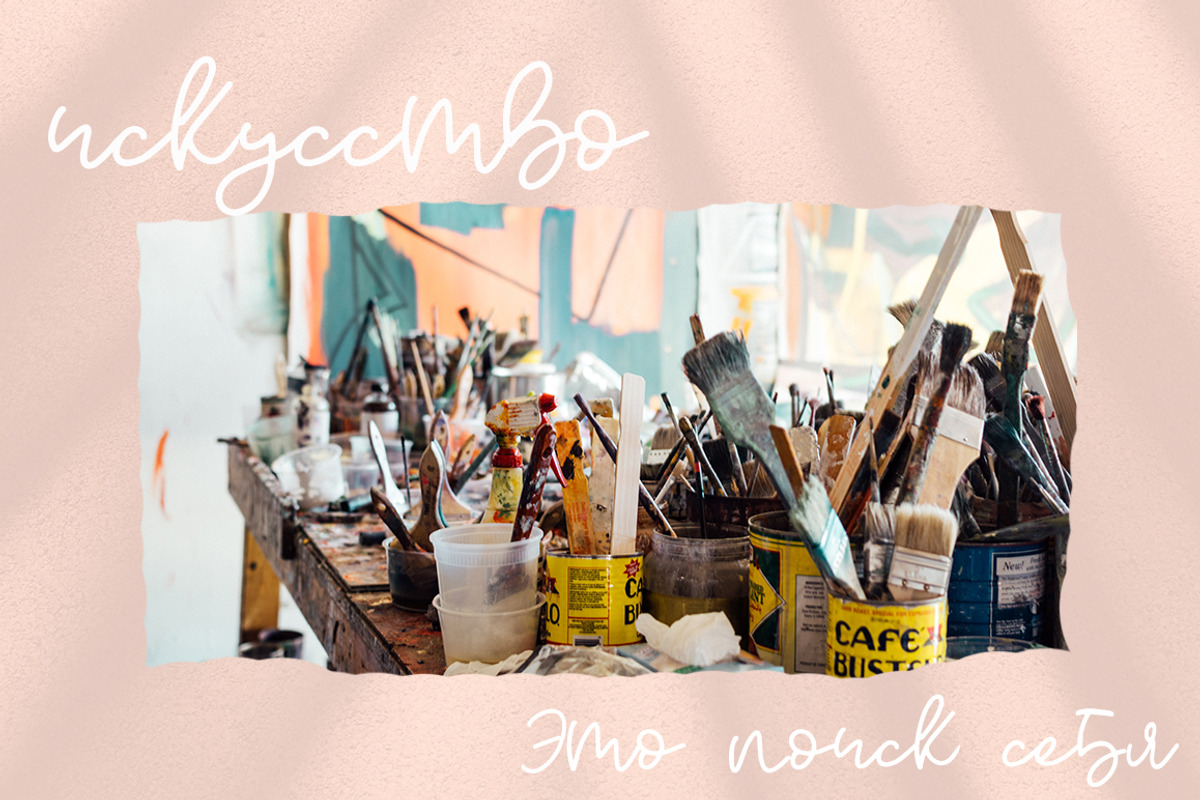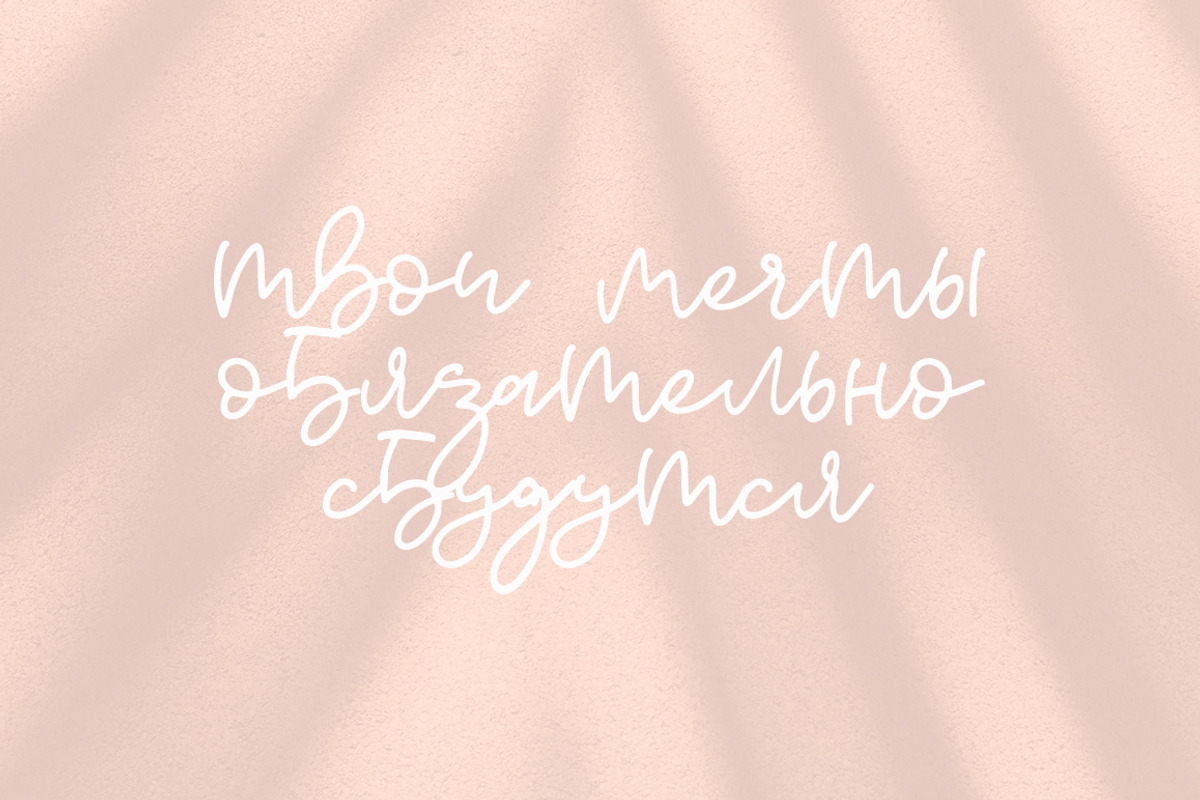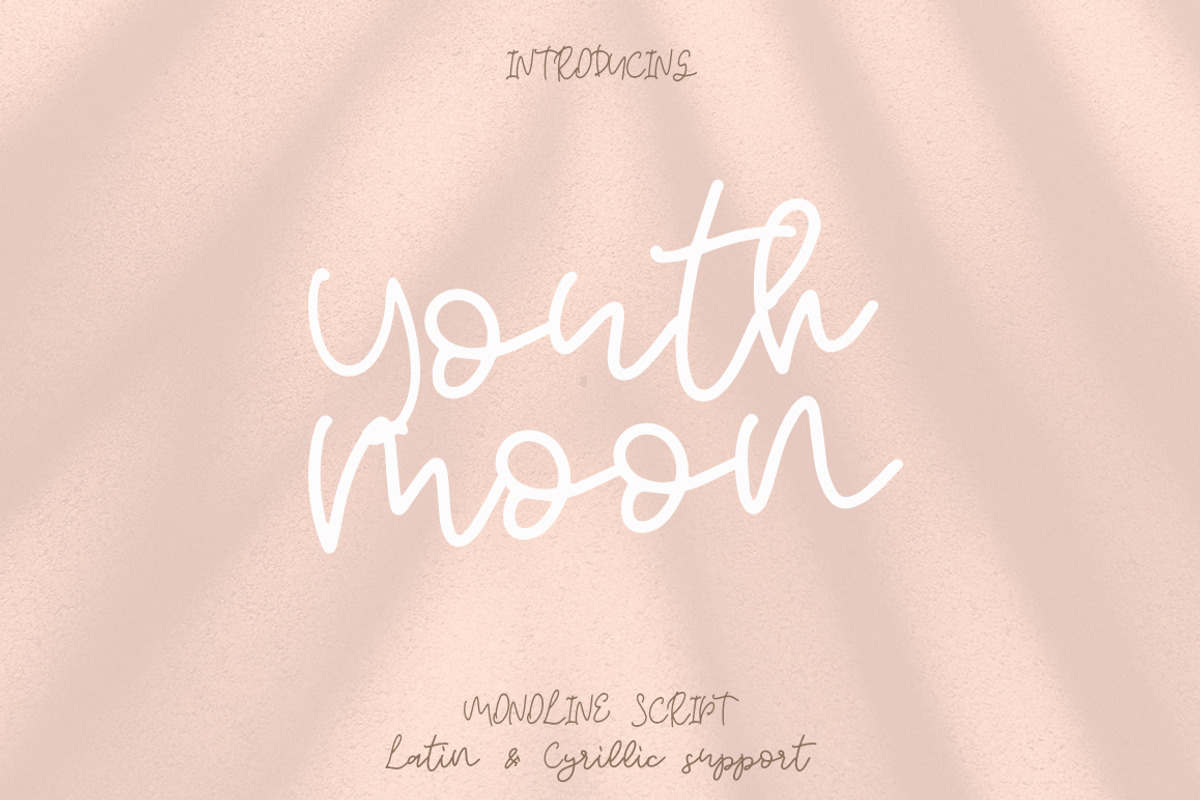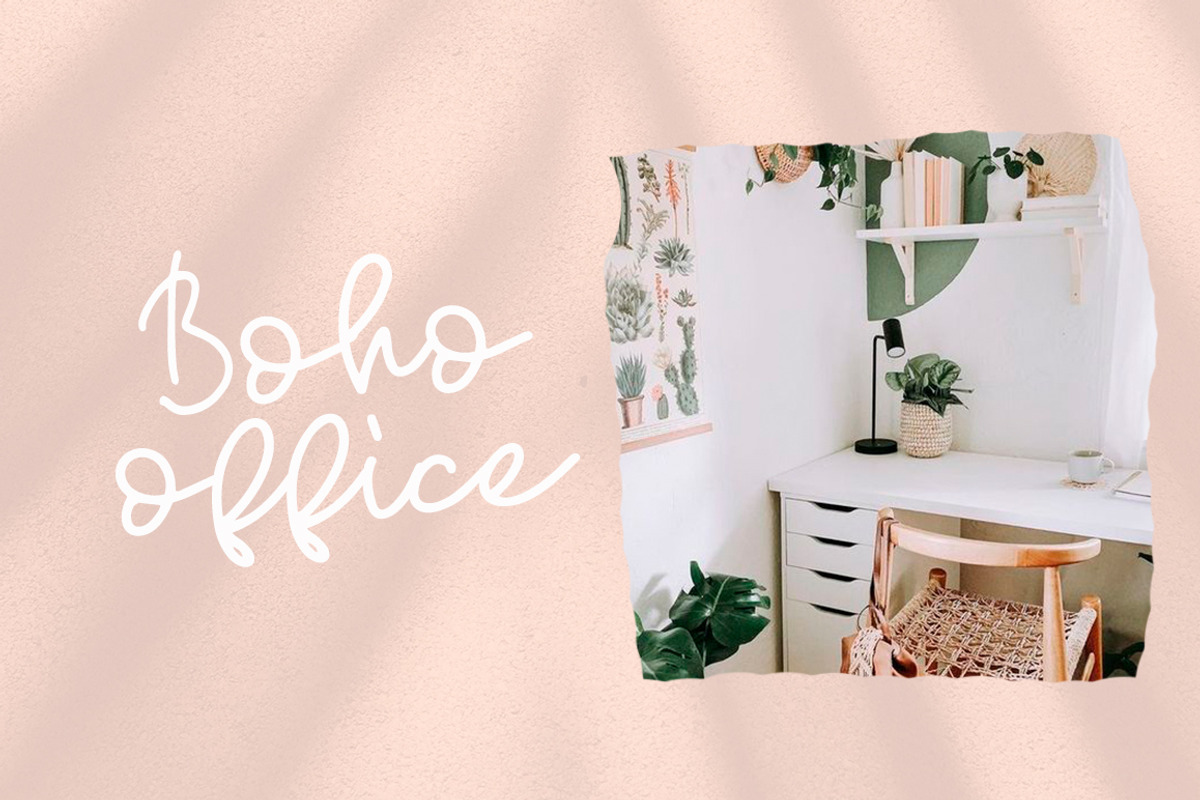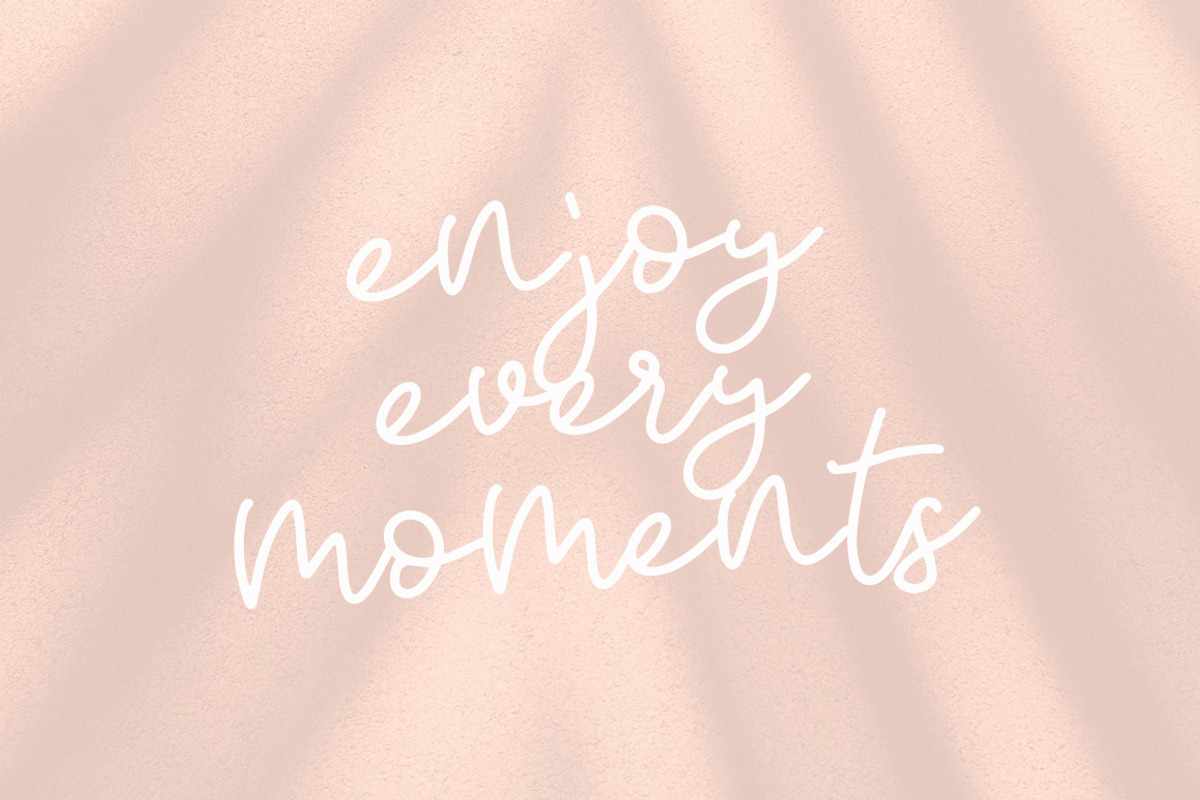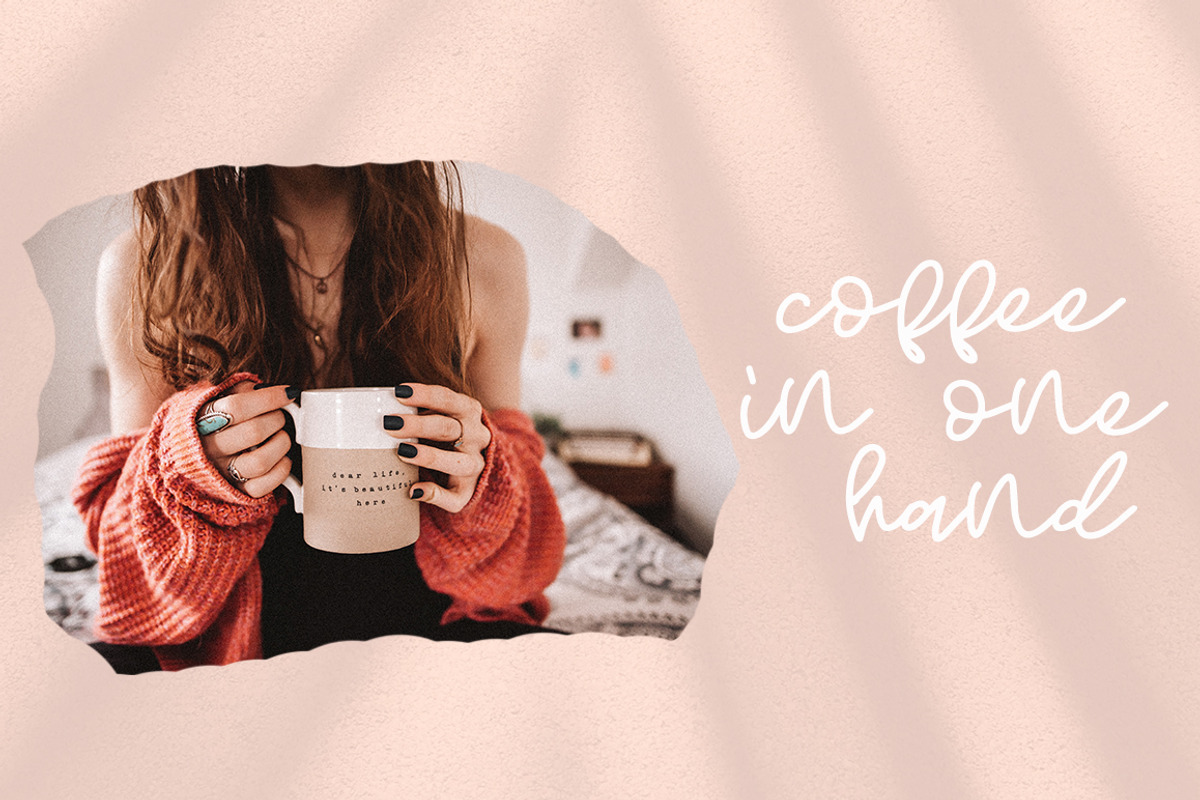
Youth Moon Latin & Cyrillic
Youth Moon is sweet and playful, but also Crafty. Every single letters have been carefully crafted to make your text looks beautiful. With modern script style this font will perfect for many different project ex: logo, photography, watermark, quotes, blog header, poster, wedding, branding, logo, fashion, apparel, letter, invitation, stationery, etc .
- CYRILLIC SUPPORT